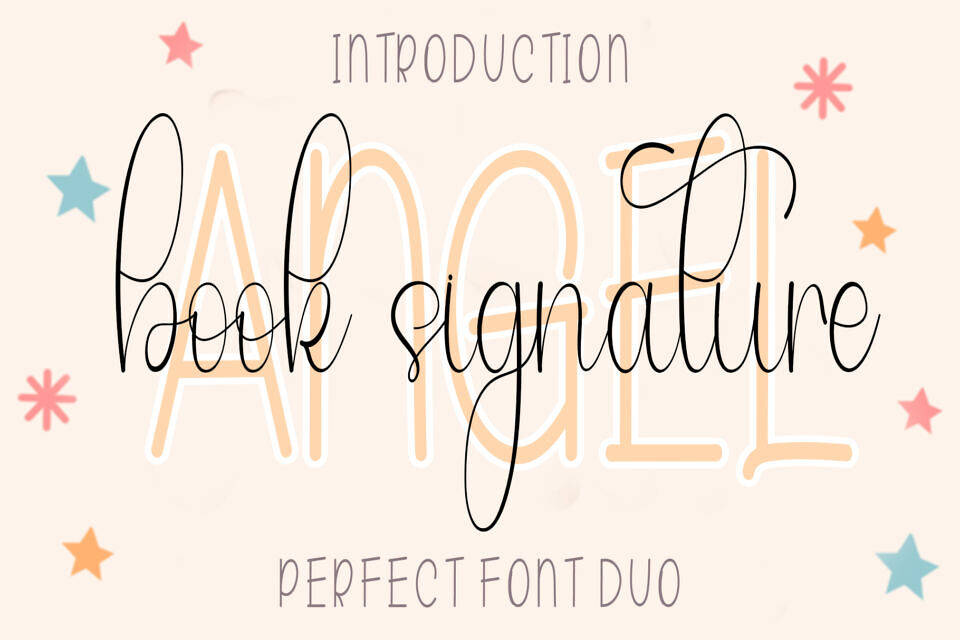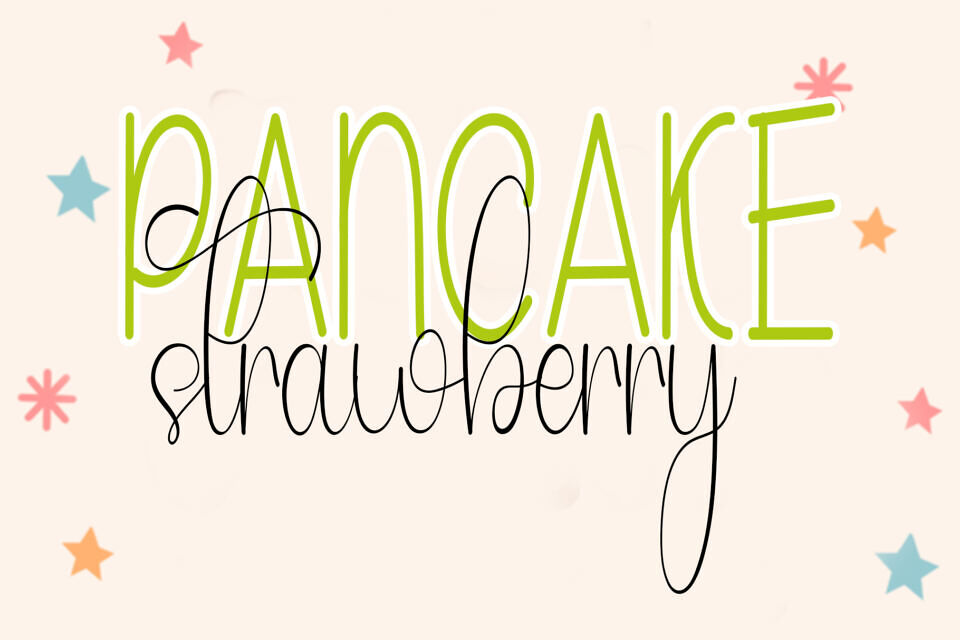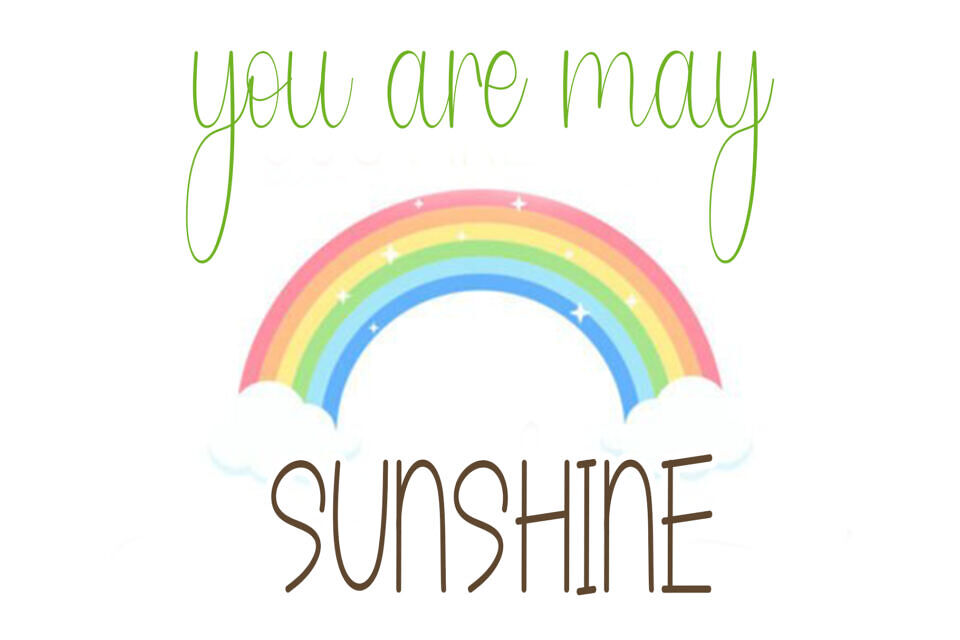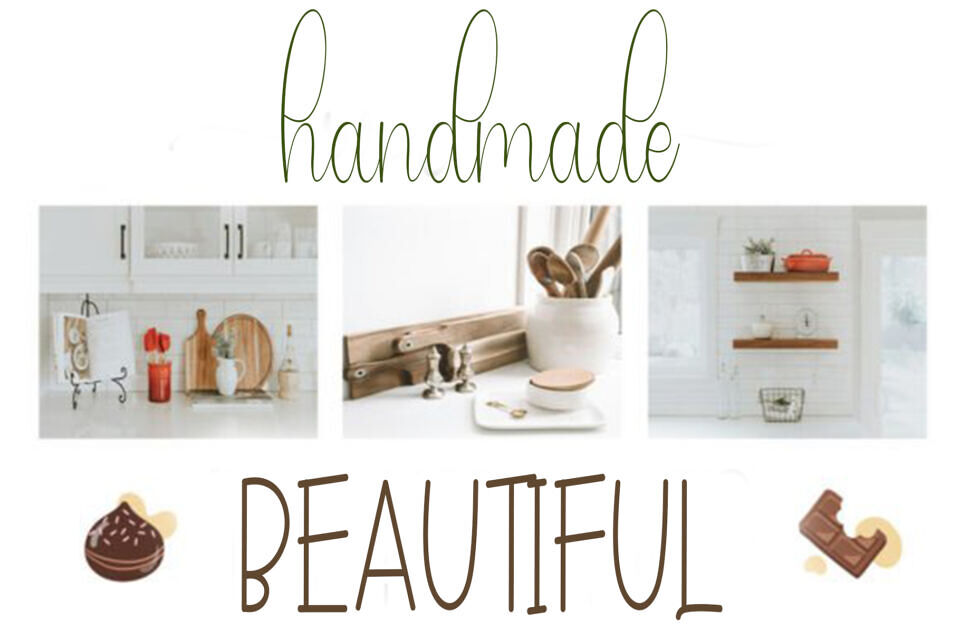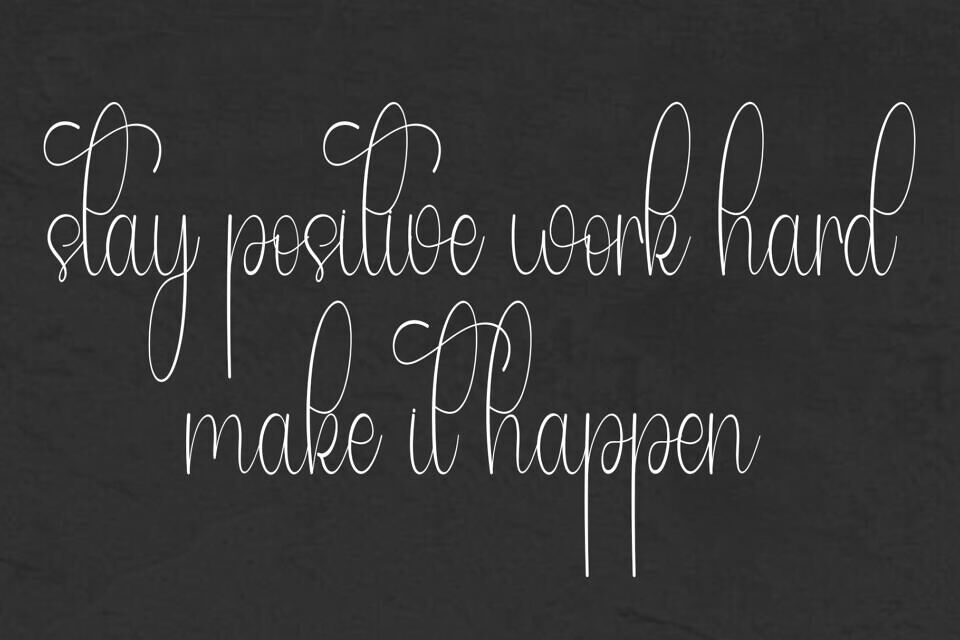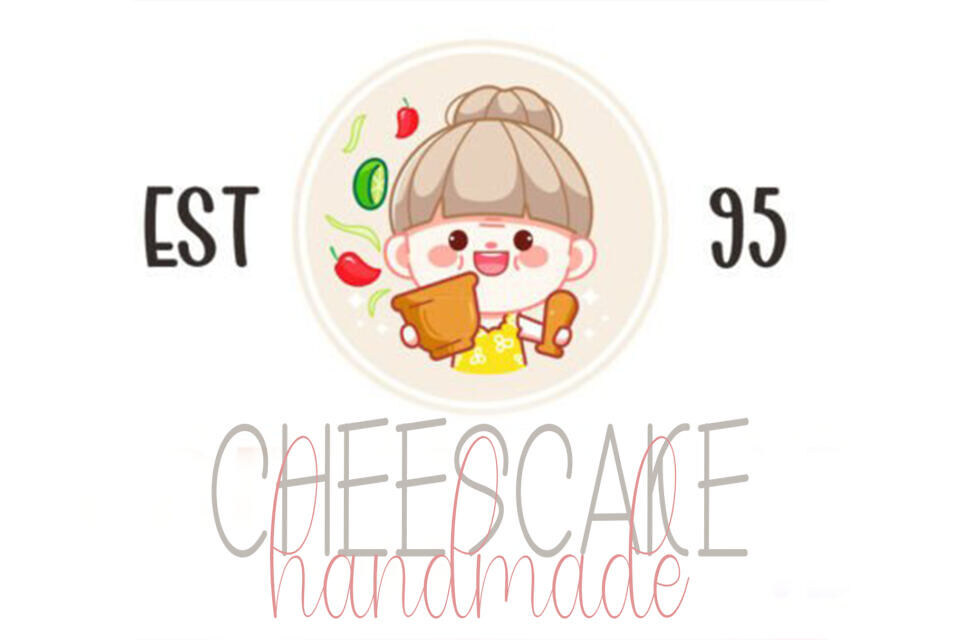
Angel Book Signature is a delicate, monolinear script that mimics the fluid motion of a fine-tip pen. Its tall ascenders and graceful loops give it an airy, ethereal quality. Paired with its clean, hand-printed companion font, this duo is the premier choice for “Bookstagram” watermarks, author signatures, and boutique lifestyle branding.
This font duo suits intimate applications, such as covering romance novels or wedding stationery. It also works well for simple logos, adding a touch of elegance to minimalist designs.